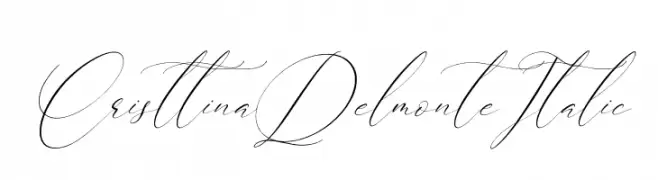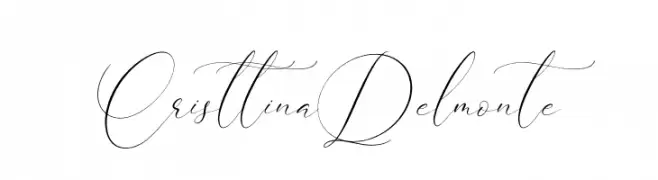
A playful, brush-textured font with a dynamic and lively style.
A flowing, cursive font with elegant, script-like characteristics.
A flowing, cursive script font with elegant, elongated characters.
An elegant, flowing script font with graceful cursive strokes.
A modern, elegant script font with flowing, interconnected strokes.
An elegant, flowing script font with delicate, thin strokes and intricate swashes.
A graceful, flowing script font with high contrast and elegant curves.
A fluid and elegant cursive font with interconnected strokes, mimicking natural handwriting.
A fluid and elegant script font with a sophisticated, handwritten style.
A dynamic, cursive script font with fluid, connected letters and varying stroke thickness.